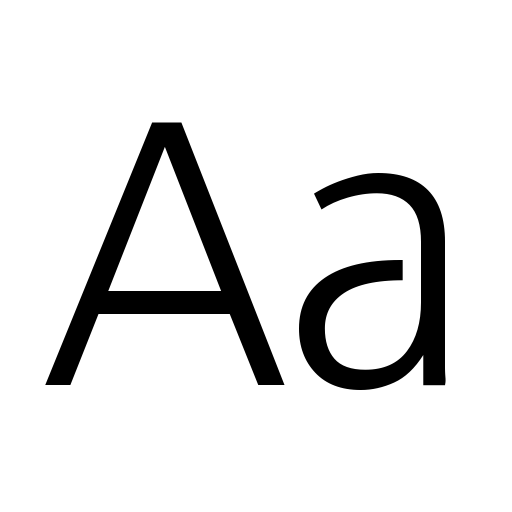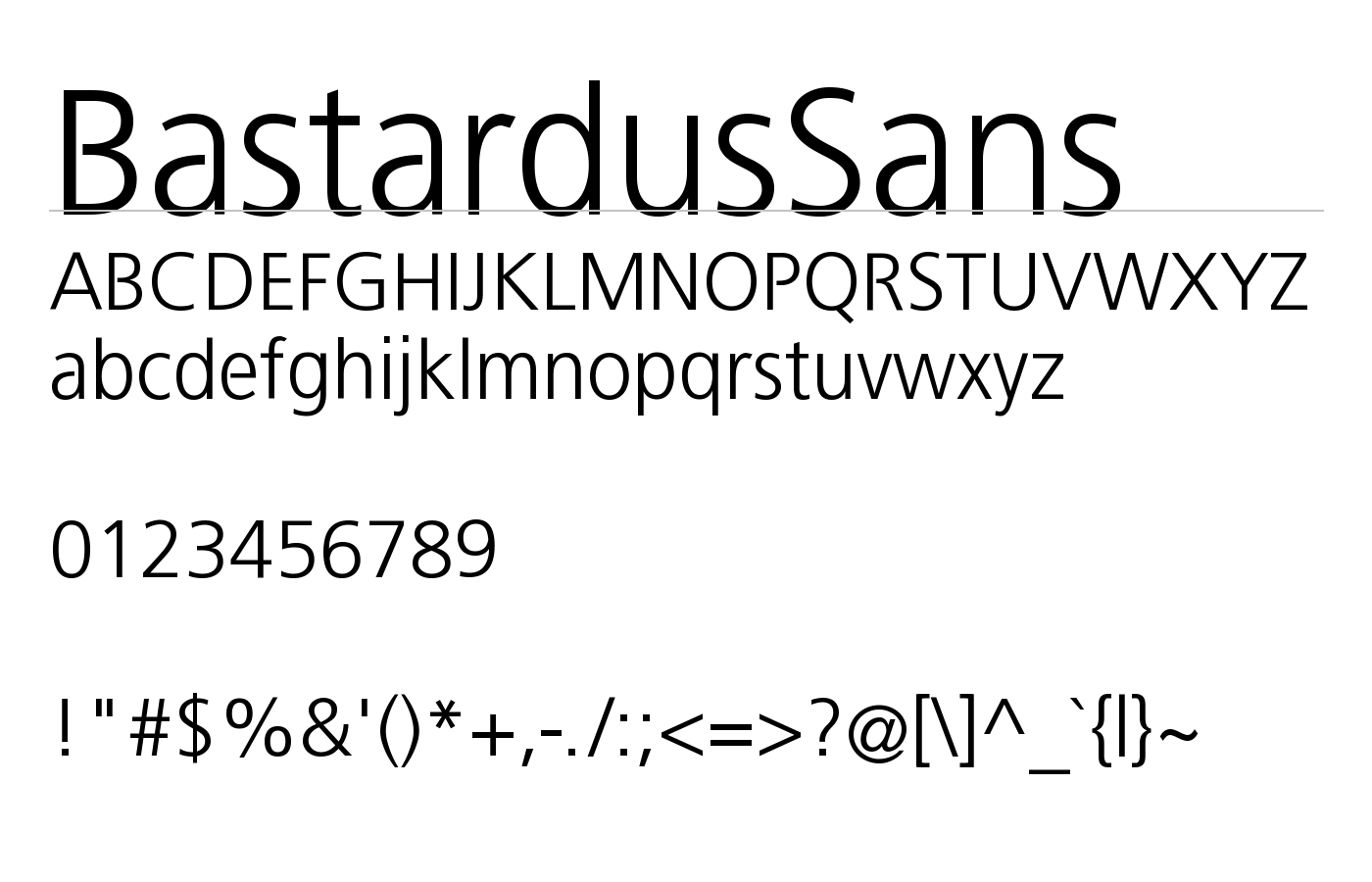
BastardusSans is a clean, modern sans-serif font with a regular weight and a slightly condensed width that creates an efficient use of space. Its tall x-height and low contrast between strokes give it excellent legibility, while its subtle, soft curves add a friendly and approachable character. This versatile typeface works well in branding, editorial design, and user interfaces where a contemporary, professional, yet warm feeling is desired.
BastardusSans Font